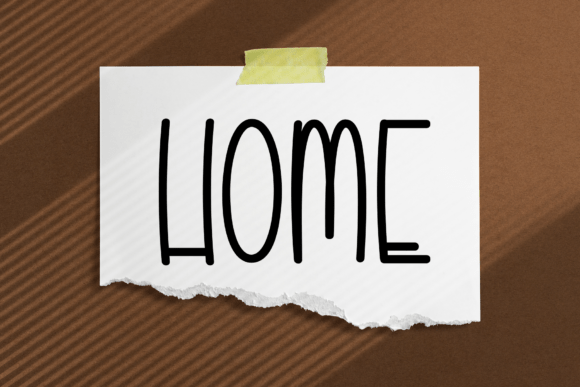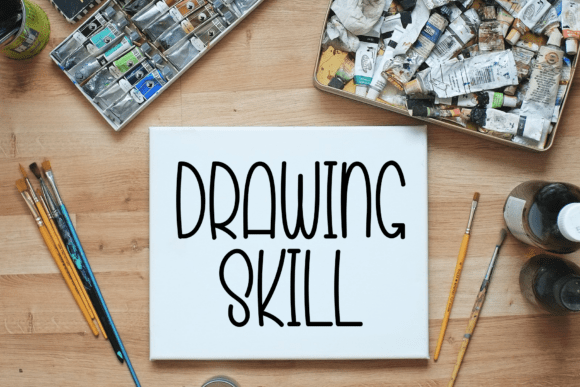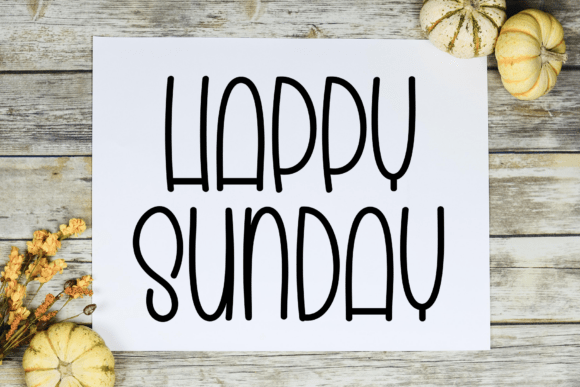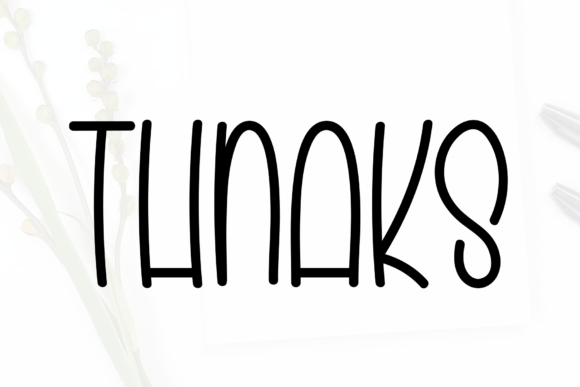
The Perfect Summer Vibes: Uncovering the Charm of Cantaloupe Font
There’s nothing quite like the feeling of sipping a cold glass of lemonade on a warm summer afternoon, surrounded by the gentle hum of a backyard barbecue. It’s a moment that sparks creativity and sets the tone for a relaxed, carefree atmosphere – the perfect setting to let your imagination run wild. And what better way to capture that feeling than with a font that embodies the same effortless charm?
Enter Cantaloupe Font, a delightful handwritten typeface that exudes heartfelt perfection. With its smooth strokes and organic lines, Cantaloupe Font is the perfect choice for designers looking to add a touch of whimsy and personality to their projects. Whether you’re creating a branding campaign, designing invitations, or crafting social media graphics, Cantaloupe Font is a valuable addition to your design toolkit.
- Unique Characteristics: This font features a unique blend of modern and vintage elements, with subtle texture and organic feel, making it suitable for creative and editorial projects.
Cantaloupe Font Review
I recently had the chance to work with the Cantaloupe Font, and I must say it’s a unique addition to any design project. ✨ The font’s most notable feature is its rounded and playful appearance, which makes it perfect for creating a warm and inviting atmosphere. It’s ideal for projects that require a sense of whimsy and fun, such as children’s books, advertisements, or social media graphics.
- ✨ Unique and playful appearance that adds a touch of whimsy to any design project
- ✨ Suitable for various font sizes, from small to large, without losing its charm
- ✨ Works well in digital and print formats
- ⚠️ May not be suitable for formal or professional projects due to its playful appearance
- ⚠️ Some characters may not be available in all languages, which could limit its use in multilingual projects
- ⚠️ May require additional formatting to achieve the desired look, especially in complex designs
Overall, I think Cantaloupe Font is a great addition to any designer’s toolkit. While it may not be suitable for every project, it’s a versatile and fun font that can add a lot of personality to your designs. Just be sure to consider its limitations and use it in the right context.
To get the most out of the Cantaloupe Font, use it for titles, headings, and other text elements that require a playful and elegant touch.
1. Food and beverage branding.
2. Children’s products and packaging.
3. Fashion and lifestyle branding.